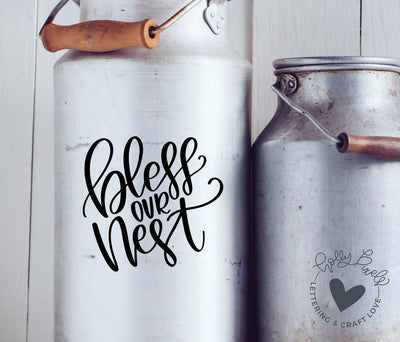
This home SVG design features Bless Our Nest and is the perfect family SVG design showing your faith and love for your family. This adorable, hand-lettered design is the perfect SVG file for a pillow or sign. This design features brush lettering. Use this super cute design to craft fun projects, apparel, and gifts for your friends and family.
You’re receiving the phrase: Bless Our Nest (this is not a font, this is hand lettering). I’m sharing previews as examples of how you can use this really adorable design over and over again for your home business or personal use. Thanks for your support! No physical product is given to you. You are downloading the digital files to create your own gifts or products using the design file.